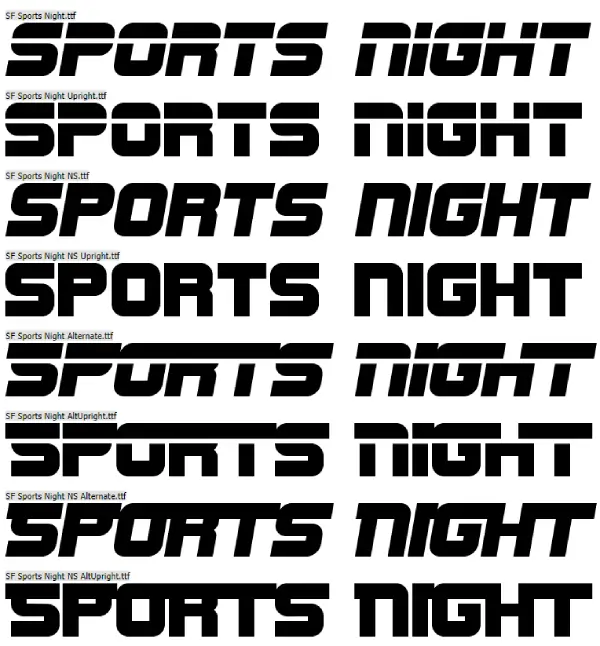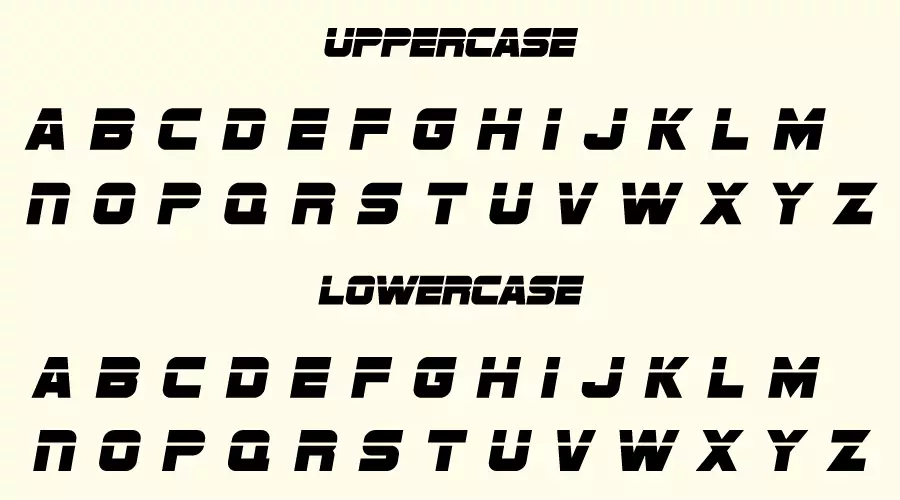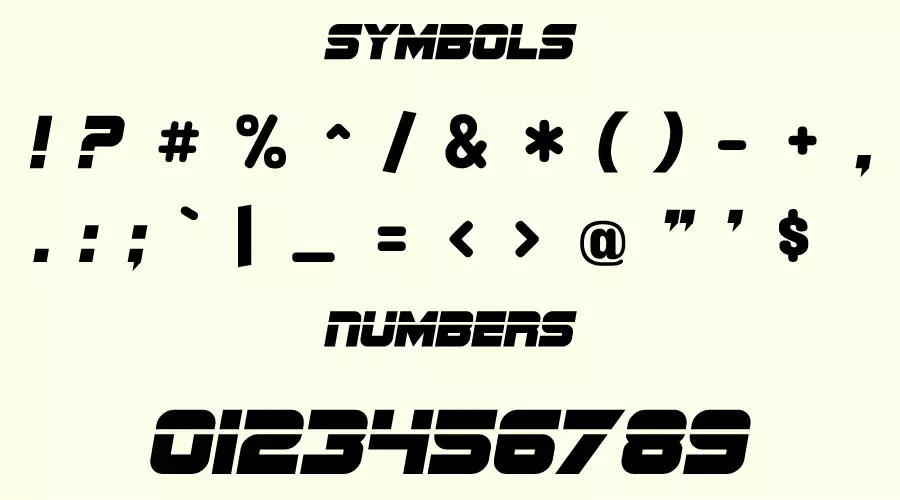
Looking for the ESPN font? Here, you will find everything you need. ESPN is currently a very popular sports TV channel. Since 1979, The Walt Disney Company and Hearst Communications have jointly owned ESPN, an American multinational sports channel. Something interesting about its logo is that it draws people to its font. That is why we will be discussing the ESPN logo font today.
How does the ESPN logo look?
The ESPN logo features the letters “ESPN” in red with a white sans-serif font and a white stylized slanted “E.” The logo was made to be easy to recognize, and it hasn’t changed much since it was first made.
Which font does ESPN use?
ESPN’s logo uses a font designed specifically for the sports company that is not found anywhere else. But an inspired font is available for personal use called SF Sports Night by ShyFonts. It’s a Techno, Sci-fi typeface with eight different styles available. The font suits sports, entertainment, or technology-related projects where a stylized, modern font is desired.
Other Alternatives to ESPN Font
We also came across another alternative font called ESP by Nick A. Lynch. It is also a typeface in the techno-sci-fi style, with four variations. Although the font is very similar to the ESPN logo, the character “E” is different.
What is the use case for this type of font?
The ESPN font is primarily used for the logo and branding of ESPN, the sports television channel. The custom font is not available for general use. Still, inspired fonts like “SF Sports Night” and “ESPN Font” can be used for personal or commercial projects in the sports, entertainment, or technology industries where a techno-sci-fi style font is desired. Some possible use cases include:
- Sports-related websites, blogs, and articles
- Design projects related to sports and entertainment
- Headlines and titles for technology-focused content
- Marketing materials and advertising for sports and technology companies.